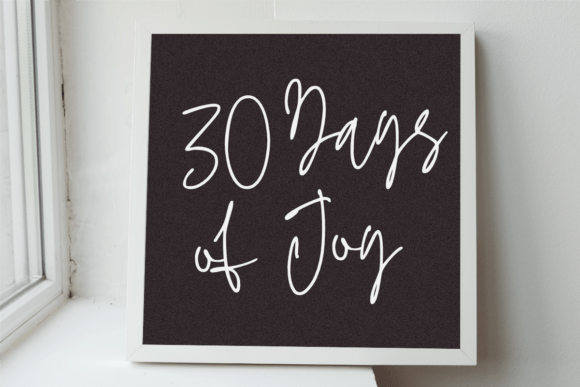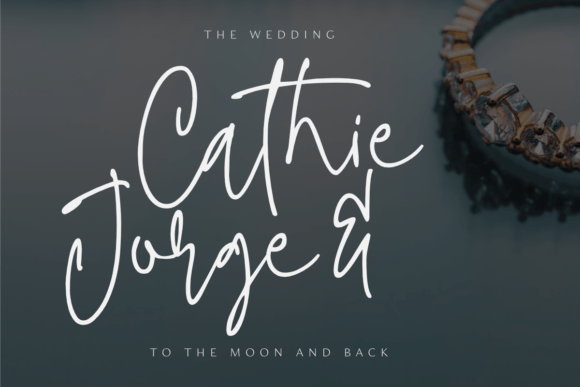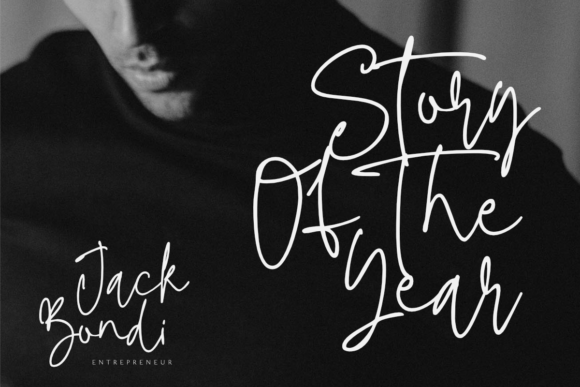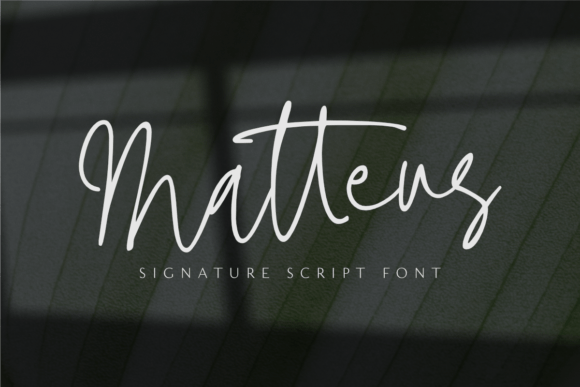
Introduction to Matteus Font
Matteus is a new, fresh, and beautifully crafted signature script font.
It’s suitable for branding, logos, social media posts, and everywhere else you’re looking for an awesome signature style .
Matteus Font offers exceptional quality and versatility, making it a valuable addition to your design toolkit. Whether you’re creating for personal projects or commercial use, Matteus Font delivers professional results.